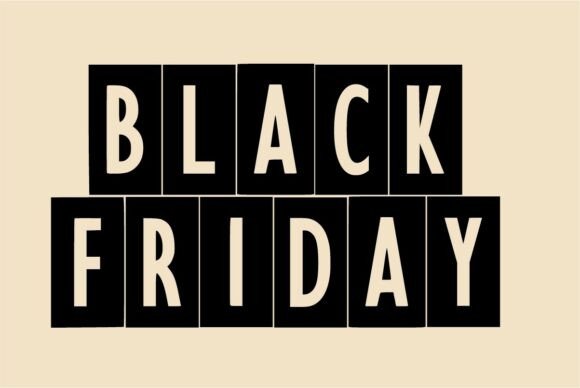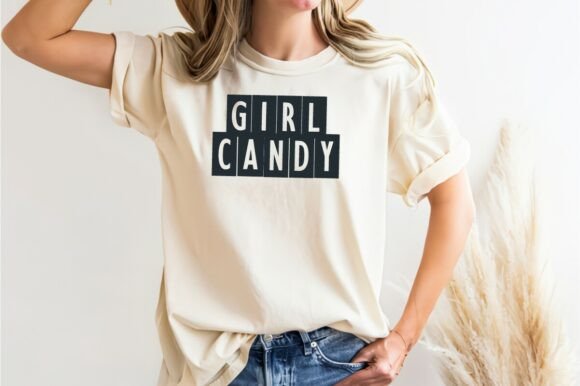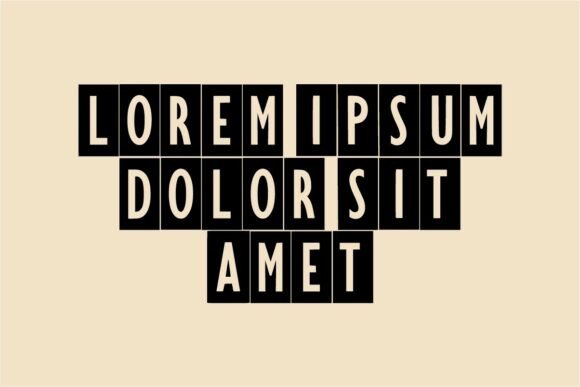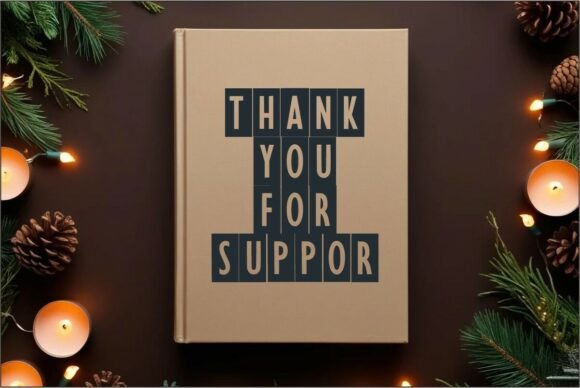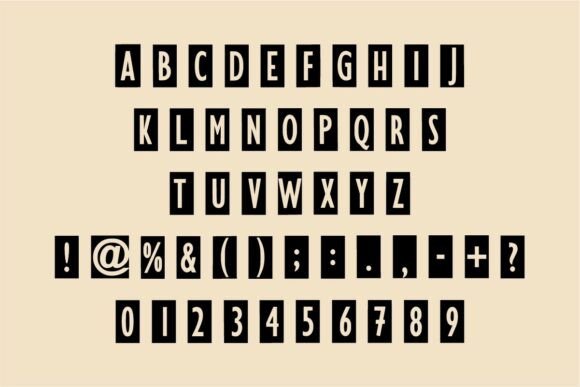
Introduction to Label Price Font
Label Price | Block Display Font Command immediate attention with the Label Price font, a bold and industrial decorative display typeface designed for maximum visibility.
The Label Price typeface is inspired by the stark, high-contrast aesthetic of retail pricing and shipping labels, featuring heavy black blocks with inverted letterforms This creates a powerful โstampโ effect that is impossible to miss.
Key Features of Label Price Font
Label Price Font offers exceptional quality and versatility, making it a valuable addition to your design toolkit. Whether you’re creating for personal projects or commercial use, Label Price Font delivers professional results.